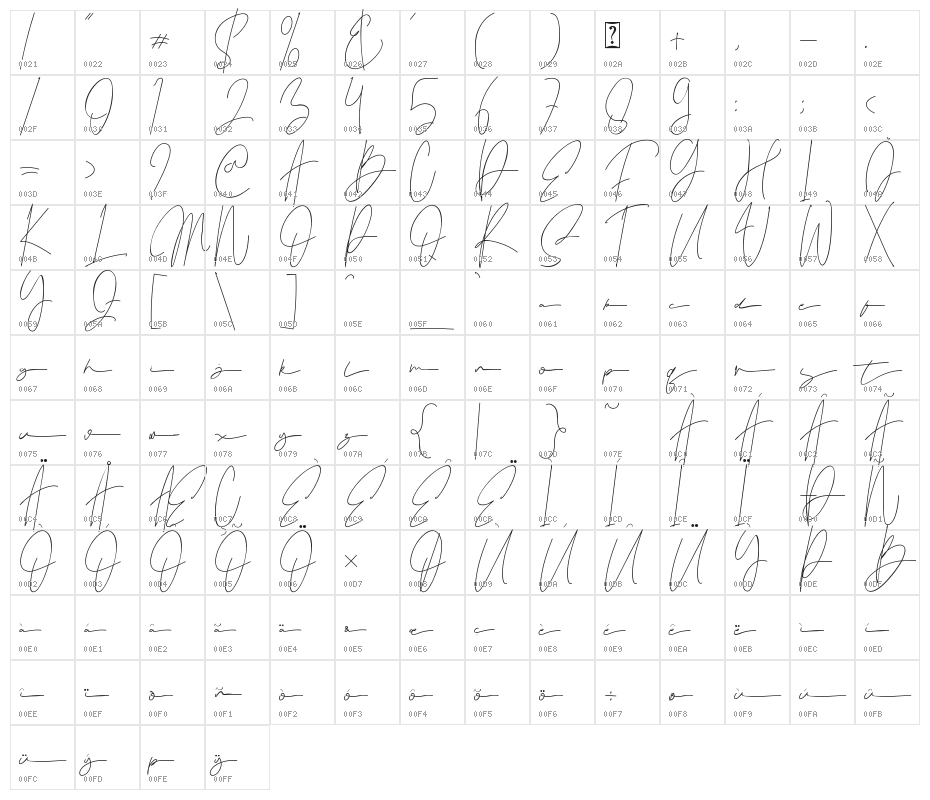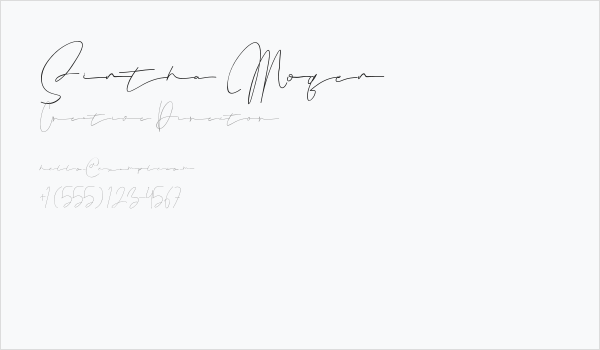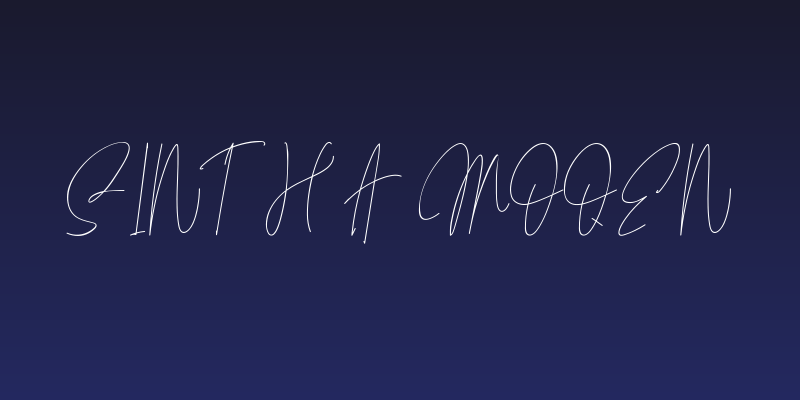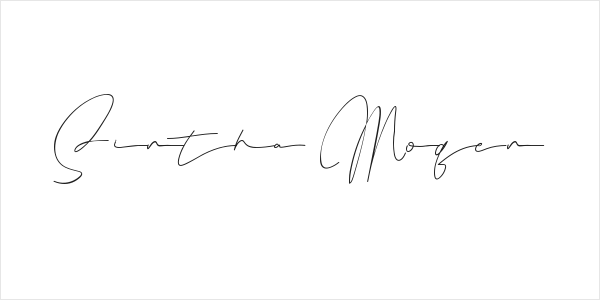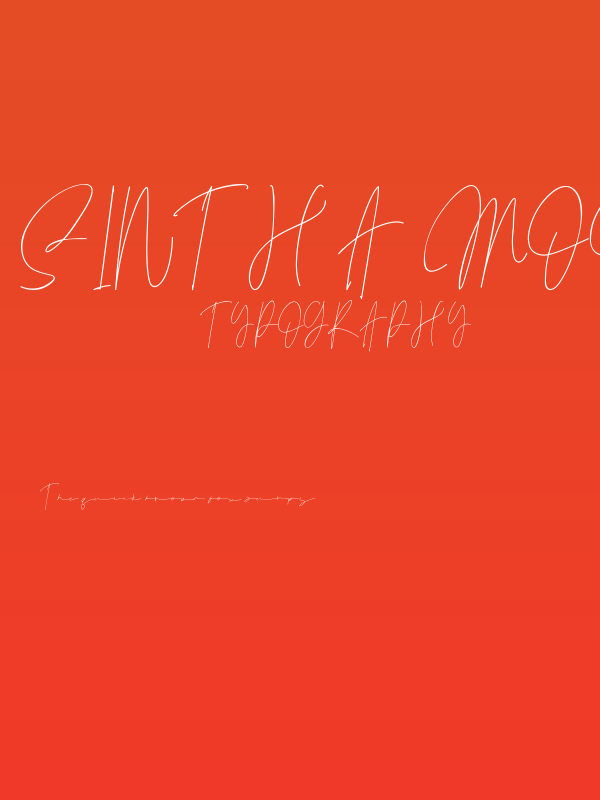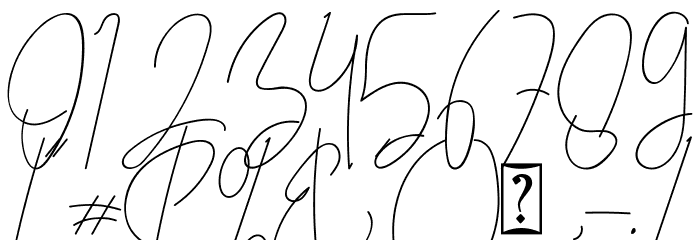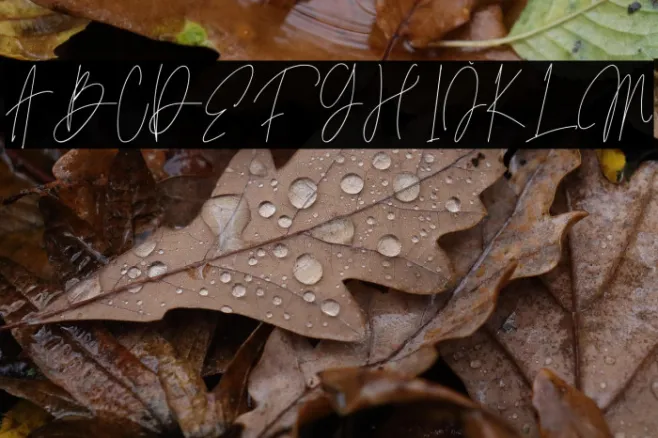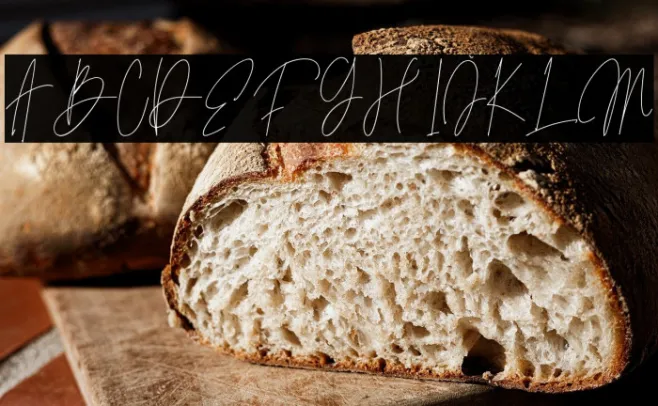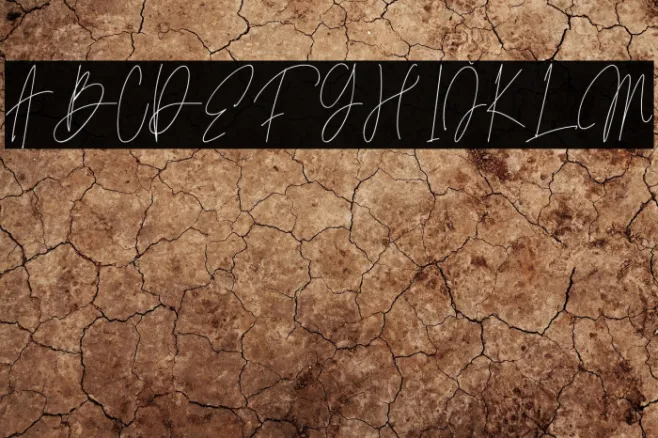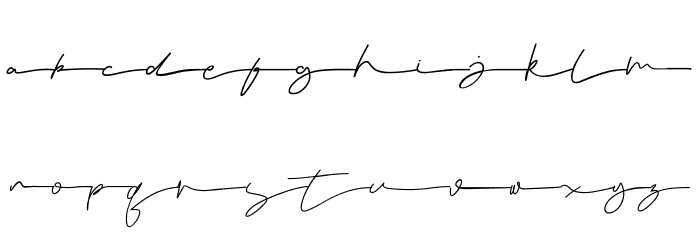
Sintha Moqen Font
Sintha Moqen Description
This font exhibits a flowing, cursive style with a handwritten appearance. The letters are elegantly connected, creating a seamless and fluid look. The uppercase characters maintain a consistent height, while the lowercase letters are slightly smaller and more delicate. The numbers and special characters follow the same cursive style, adding a cohesive feel to the entire set. The strokes are thin and graceful, giving the font a light and airy quality. This font is ideal for projects that require a personal touch or an elegant, sophisticated look.
| Proposed Projects | Ideal for wedding invitations, personal branding, greeting cards, and elegant stationery. |